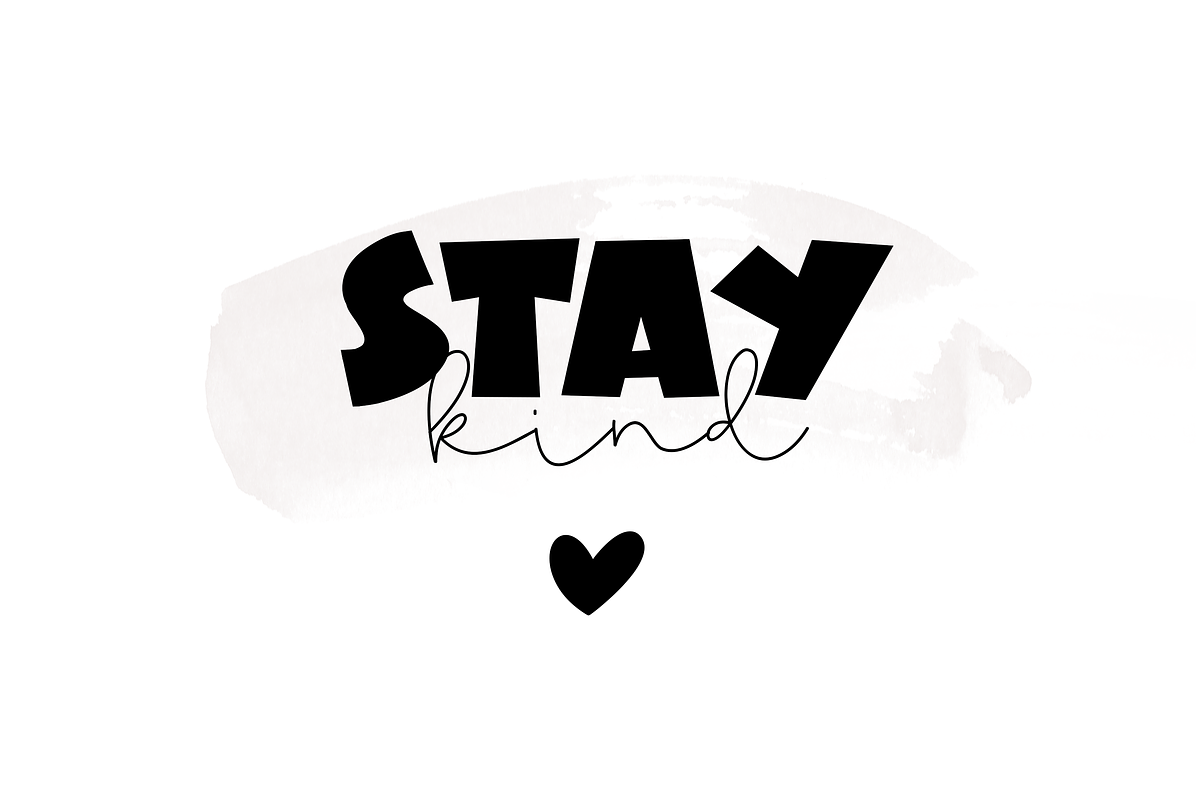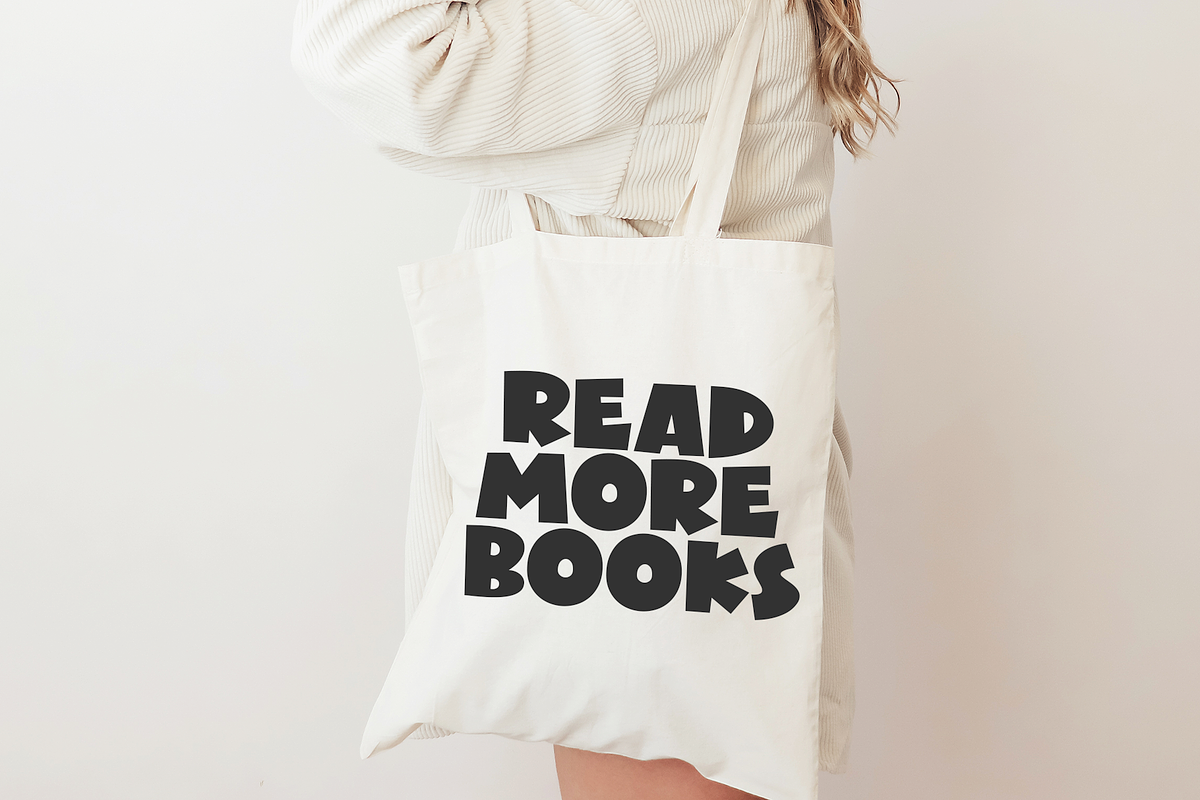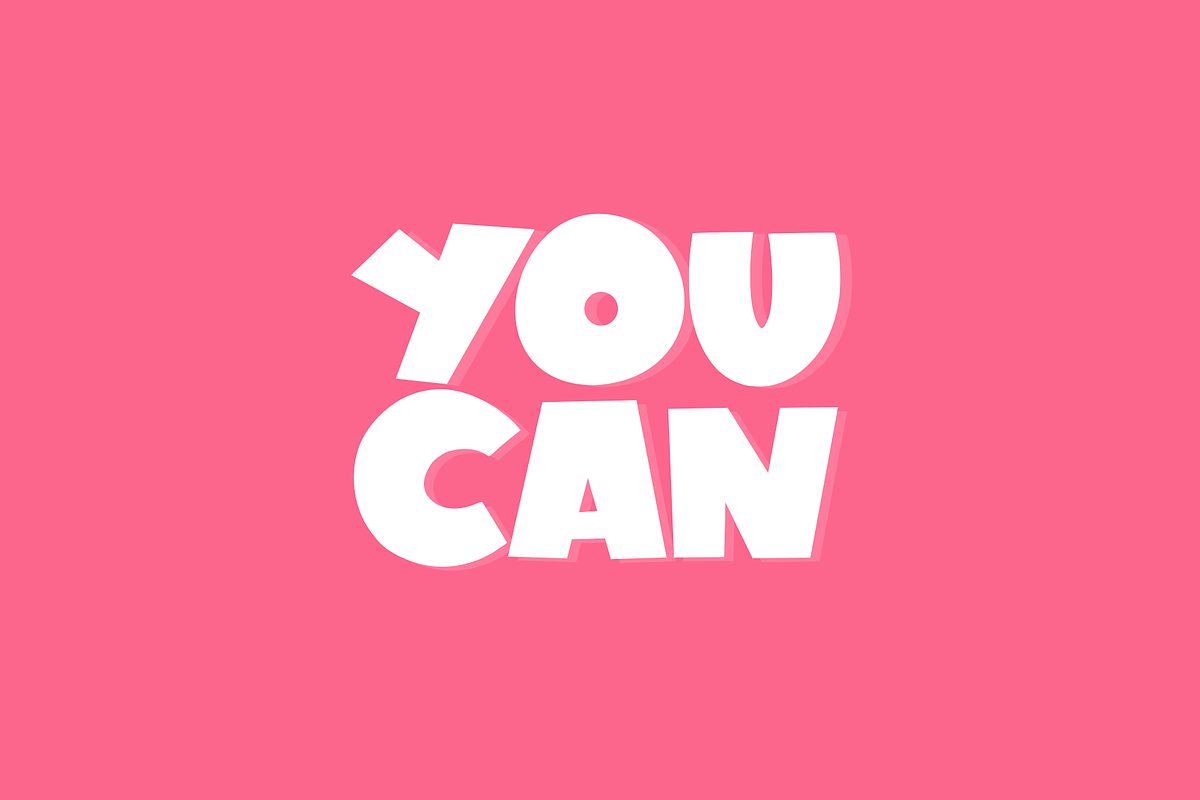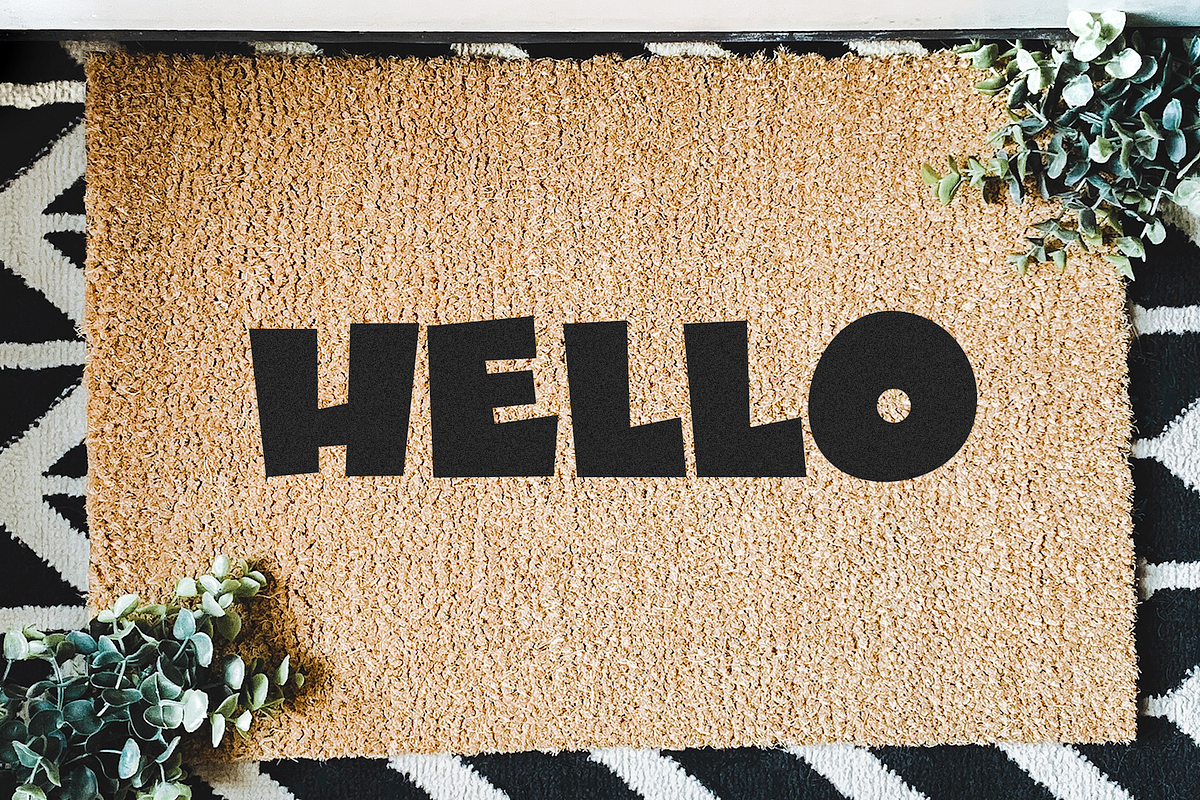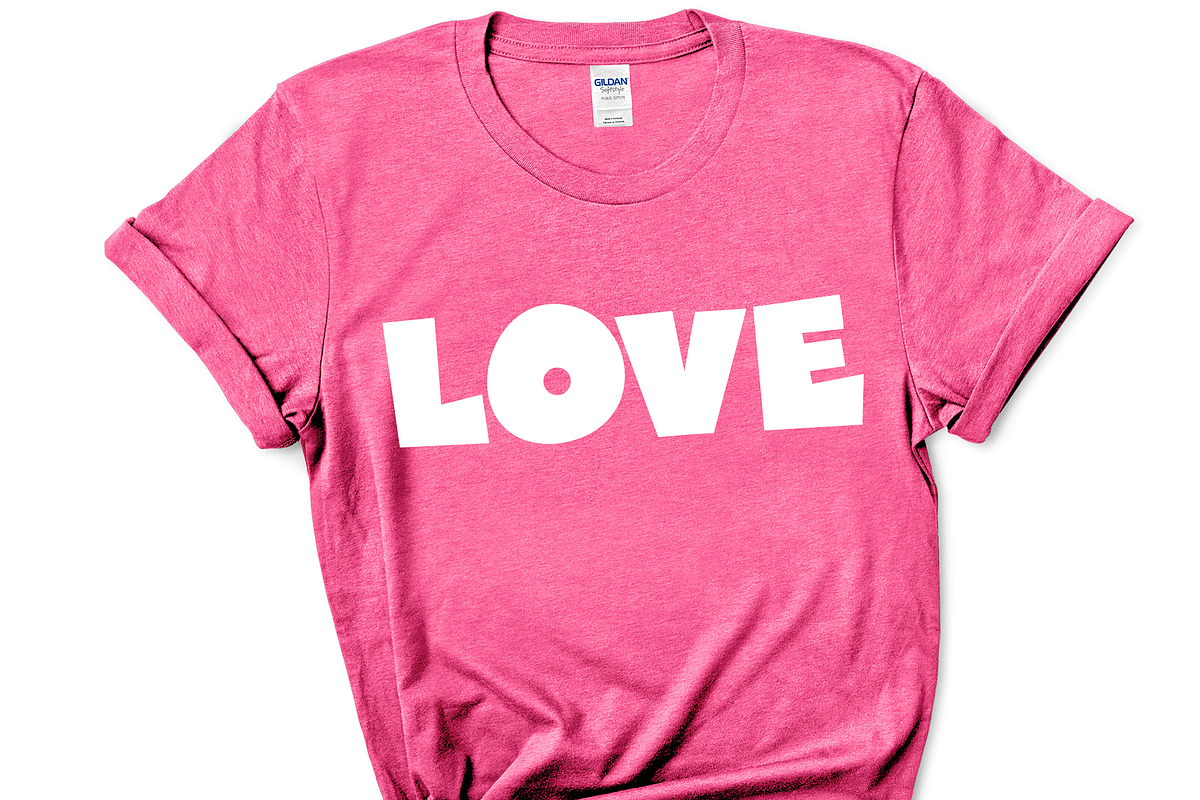
Pink - A Bold Handwritten Font
Pink is a fun and bold handwritten font.
This is an all caps font.
This font is perfect for quotes, headings, blogs, logos, invitations and more!
Pink - A Bold Handwritten Font by KA Designs fits naturally into Branding, posters, packaging, typography.